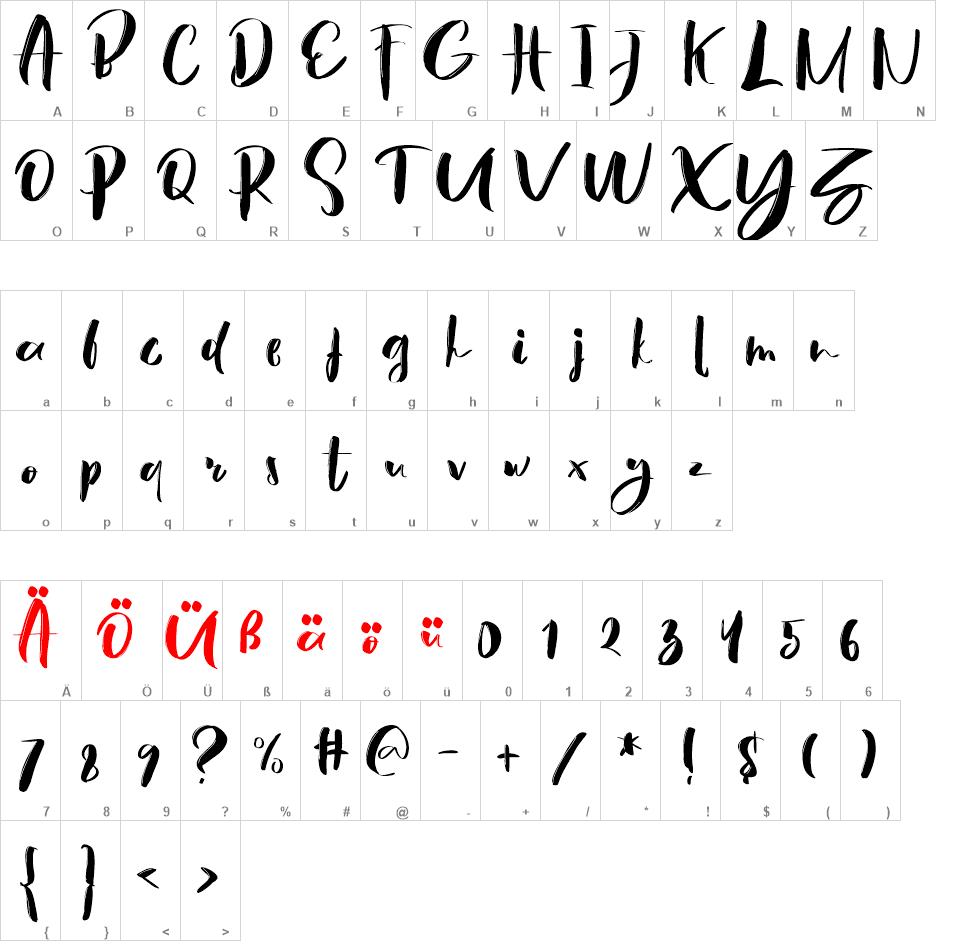
Hey Sunset Brush
Hey Sunset Brush font
Hey Sunset Brush
Hey Sunset Brush Font The Simply brush font for your awesome design, this font so suitable for TShirt Design, Brochure, Mug Design, Posters, and etc.